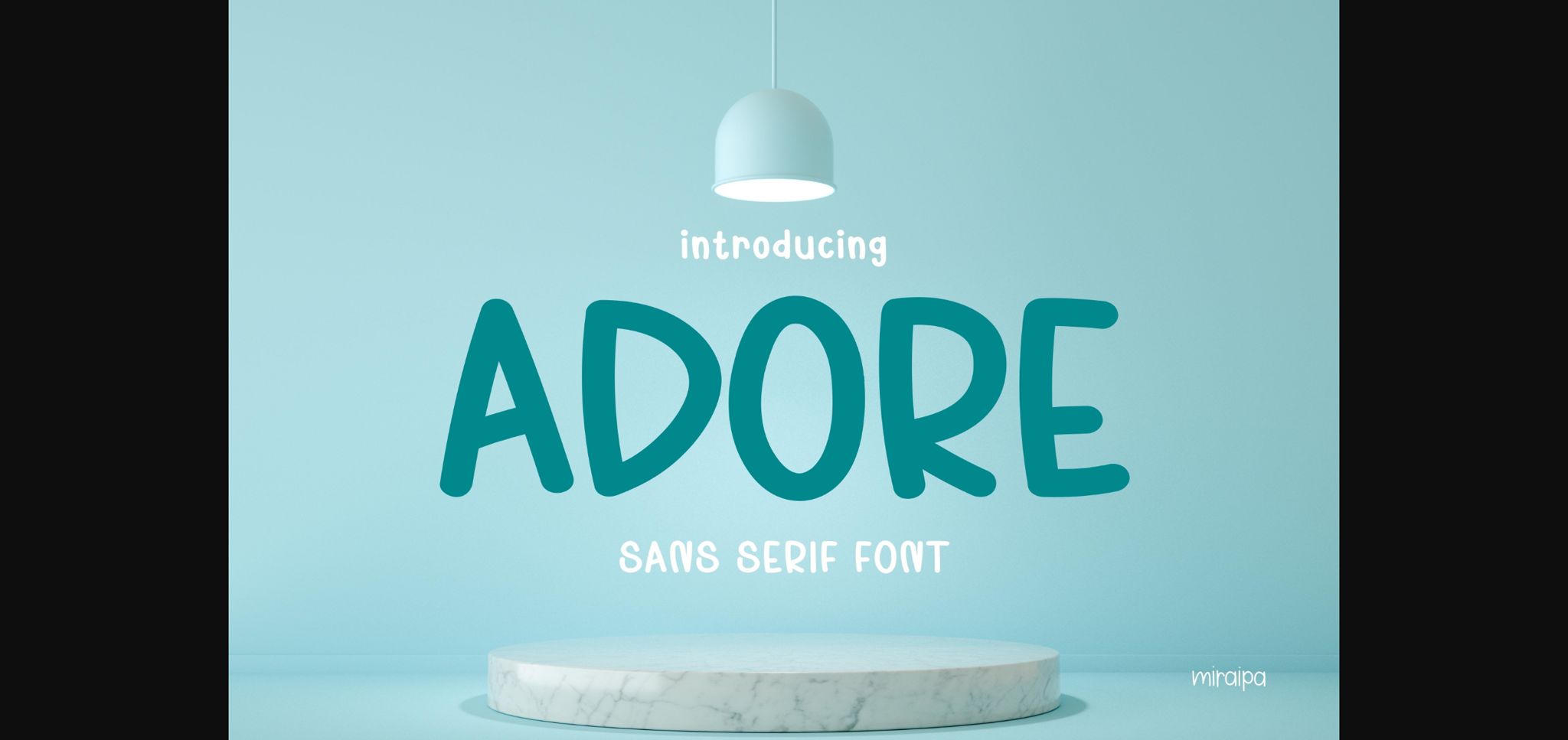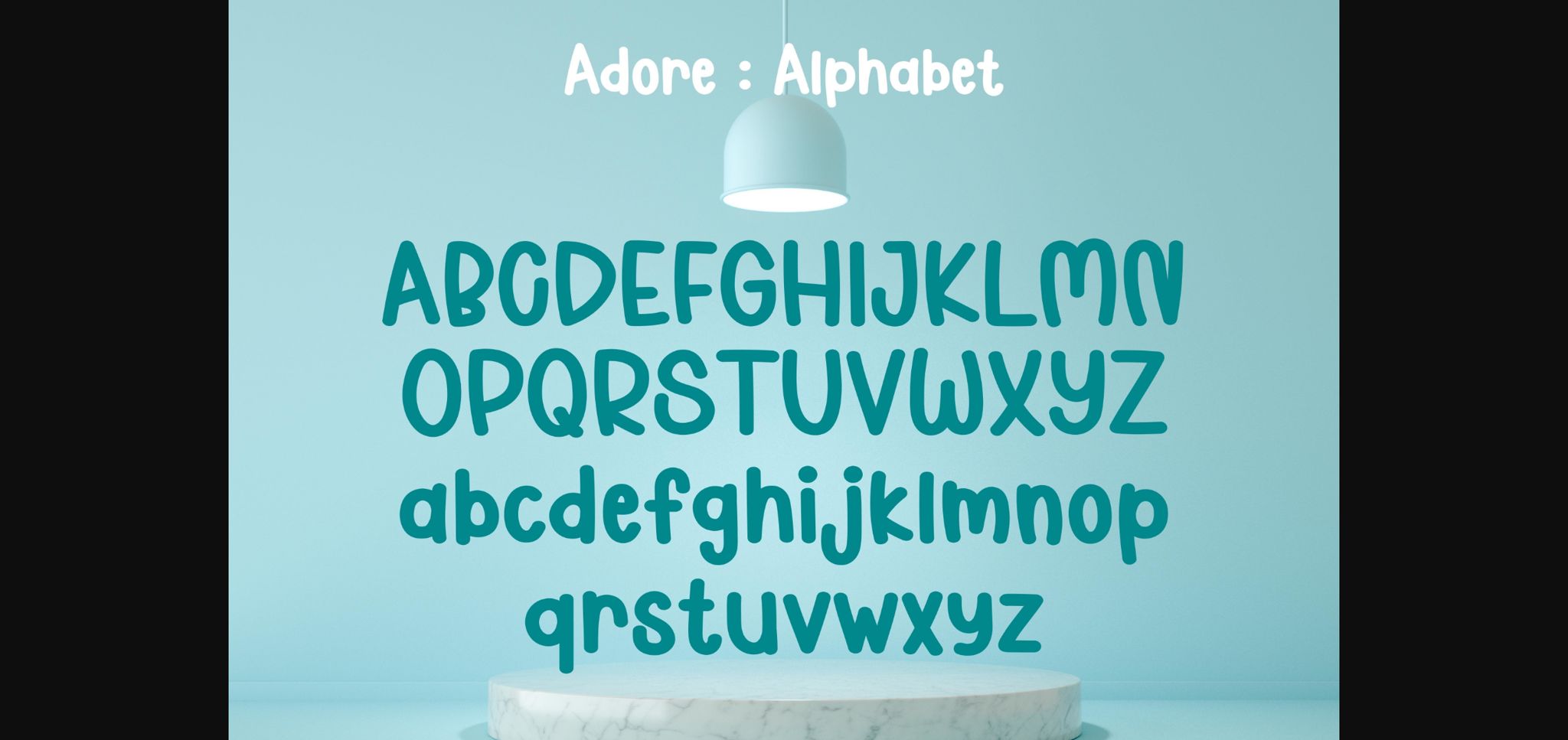
About Adore Font
Adore is designed in a friendly and cute sans serif style. It would be awesome for your projects or diary planner. Try it on back-to-school projects, party decorations, invitations, posters, blogs, clothing, child-related designs, greeting cards, social media posts, or anything that needs a friendly touch. Add it now to your fonts library, and it will bring any of your DIY projects to life.